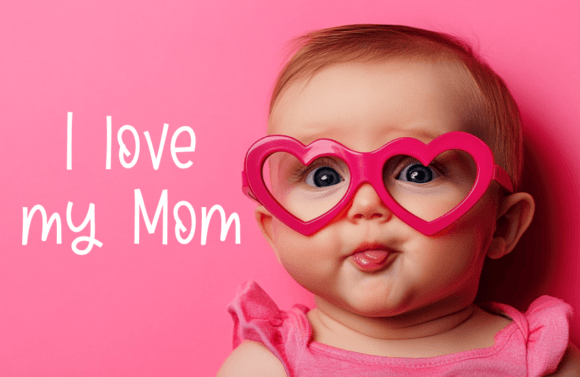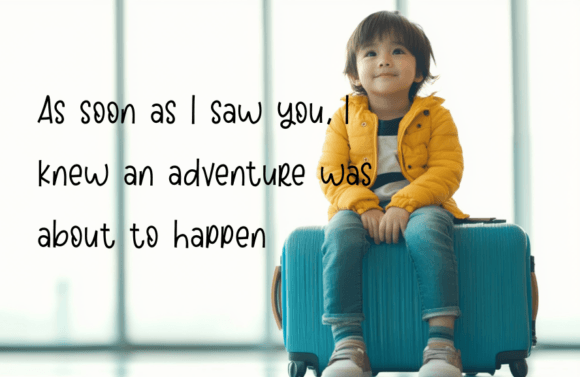
Introduction to Kids Lettering Font
As a designer, there’s nothing quite like the thrill of bringing a creative project to life. You’ve poured your heart and soul into every detail, from the color palette to the typography. But sometimes, it’s the smallest elements that make the biggest impact. That’s where the Kids Lettering Font comes in – a friendly handwritten sans that’s sure to put a smile on your face.
This versatile font is a design resource that’s perfect for kids and children-focused projects. Whether you’re creating a book cover, merchandise, or quotes, the Kids Lettering Font is a great choice. Its bouncy version adds an extra layer of fun and playfulness, making it a standout in any design. And with a high-quality, transparent background, you can rest assured that your design will look great on any surface.
Key Features of Kids Lettering Font
- High-quality, free download design resource ideal for creative projects, such as illustrations, posters, and greeting cards.
- Includes a range of uppercase and lowercase letters, numbers, and symbols, all designed in a playful, hand-drawn style.
- Perfect for designers, artists, and crafters looking for a unique and eye-catching font to add a personal touch to their work.
Honest Review: Kids Lettering Font
I recently stumbled upon the Kids Lettering Font, a design resource that caught my attention with its playful and whimsical feel. As a designer, I appreciate fonts that can elevate a creative project and bring a smile to the viewer’s face.
What works well with this font is its high quality and versatility. It’s perfect for designing materials for kids, such as coloring books, stickers, and even educational posters. The font is available for free download, which is a major plus for designers on a budget.
Here are some of the features that I like about the Kids Lettering Font:
- The font is highly customizable, allowing you to adjust the size, color, and style to suit your needs.
- The font may not be suitable for formal or professional projects.
- It’s not available in as many styles or variations as some other fonts.
Overall, I’m impressed with the Kids Lettering Font and would recommend it to designers working on a creative project that requires a fun and playful touch. With its high quality, versatility, and free download option, it’s a great addition to any design resource library.
The Kids Lettering Font is a high-quality, free download design resource perfect for any creative project. Its unique and playful style makes it ideal for kids’ educational materials, party invitations, and other fun designs.
For the best results, use the Kids Lettering Font in conjunction with other design elements, such as bright colors and playful graphics. Experiment with different font sizes and styles to create a unique and engaging design.
Common Use Cases for Kids Lettering Font
The Kids Lettering Font is perfect for a variety of creative projects, including kids’ party invitations, educational materials, and fun designs for social media and websites.